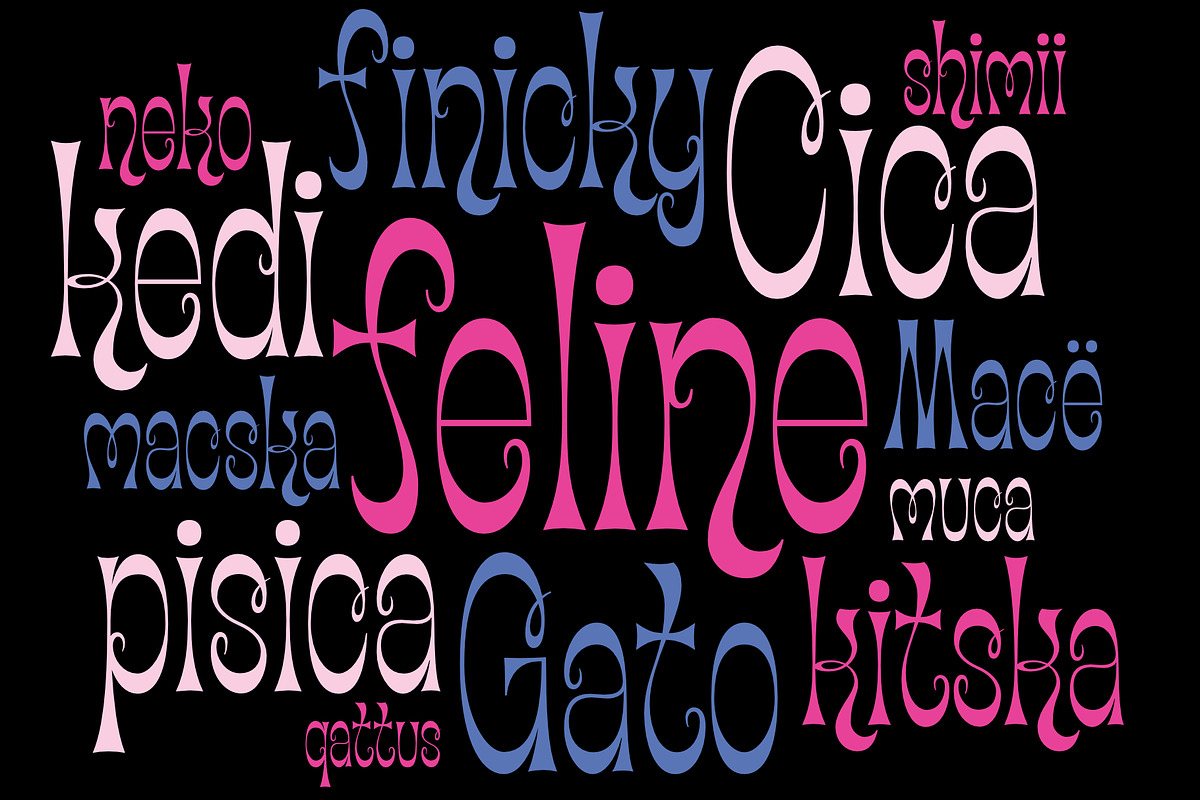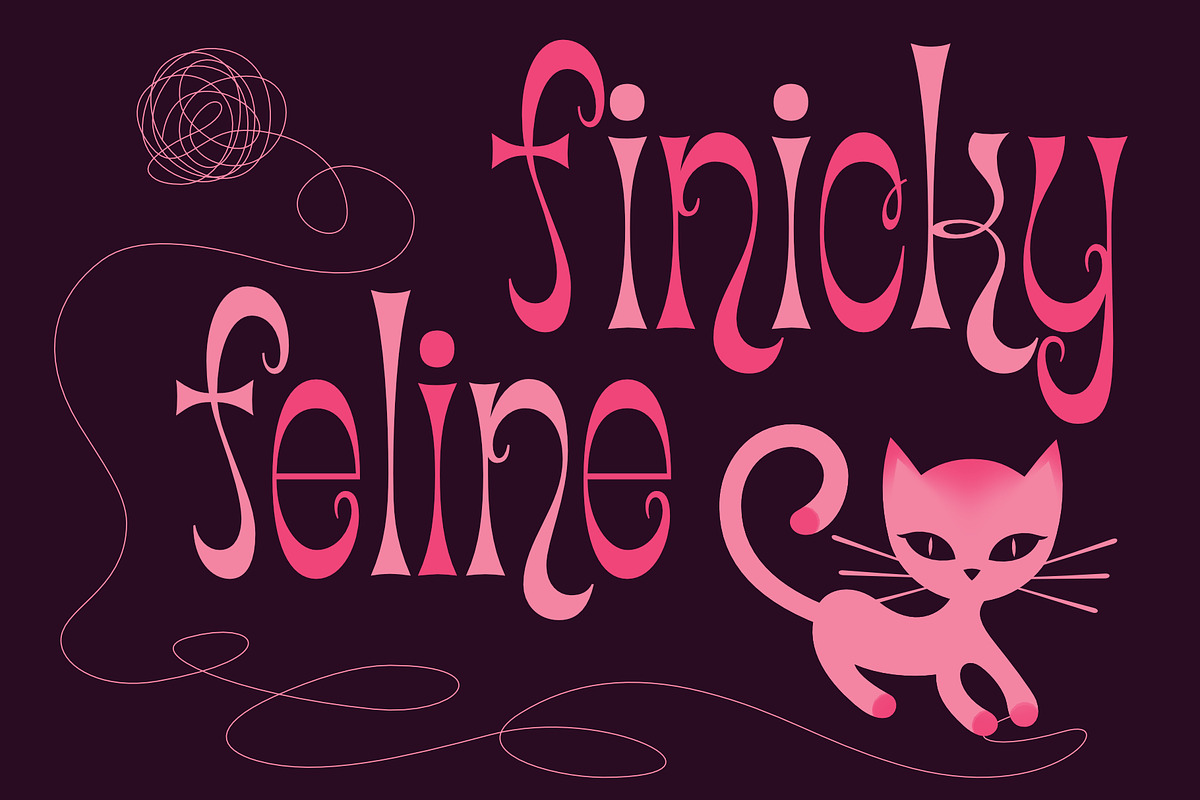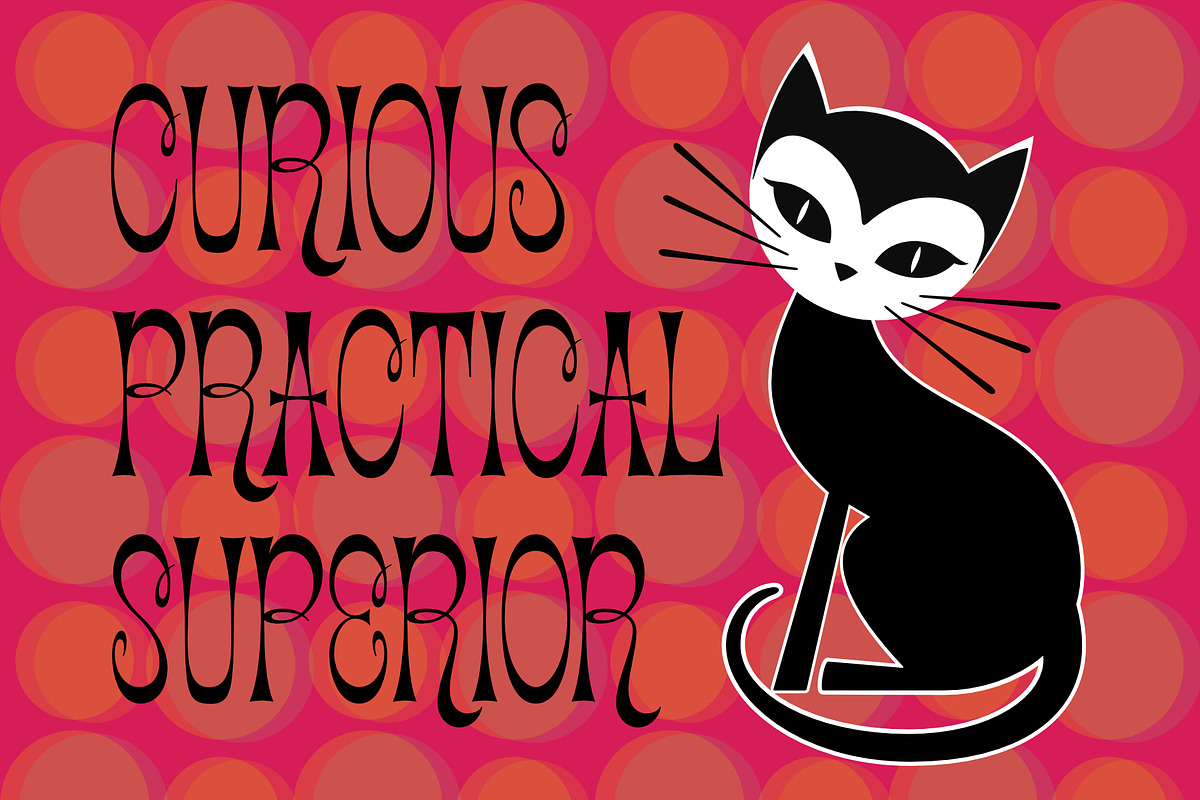
Cica - a fun finicky feline font!
Ok, I'm allergic to cats and have never had one, but I can still create a typeface that embodies feline character! Cica combines the careful nature of cunning cats with the playfulness of kittens. It's simply fun to use and expresses multiple personalities depending on your choice of all upper case, lower case or mixing the two. Take Cica home with you today!